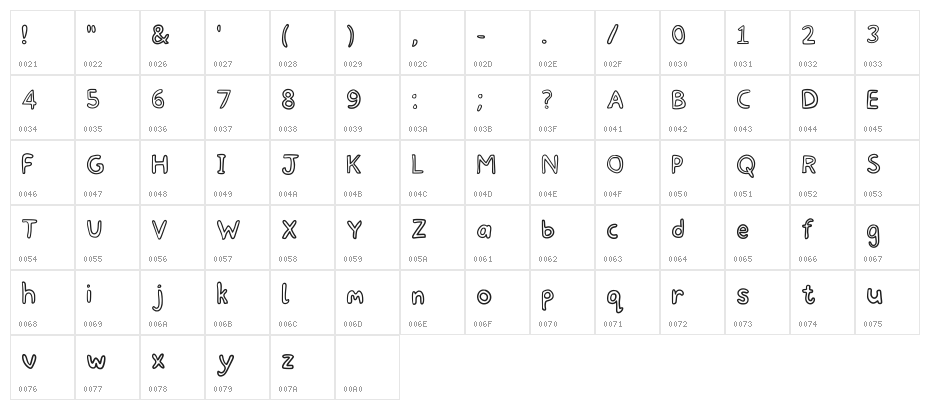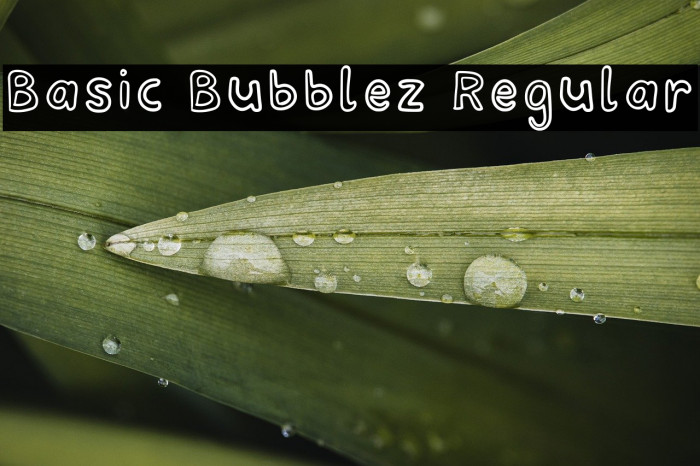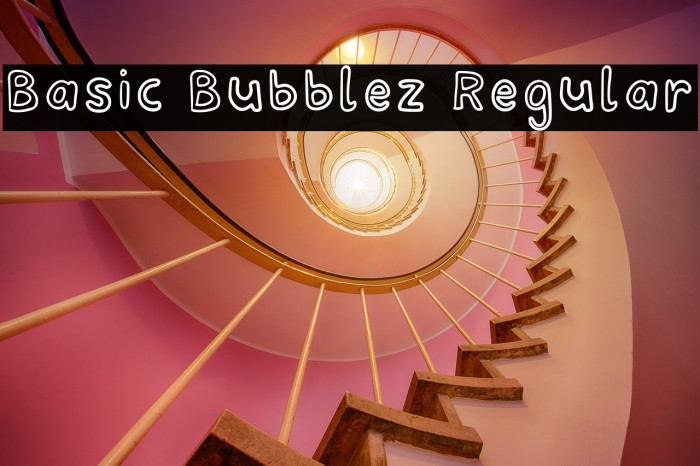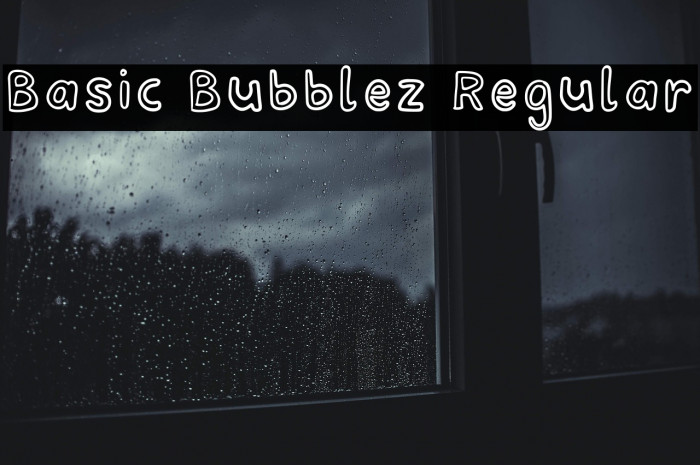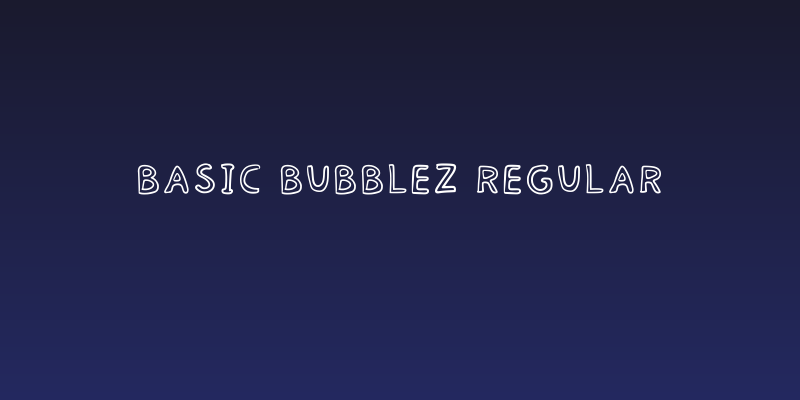
Basic Bubblez Regular Font
Basic Bubblez Regular Description
This playful and whimsical font features rounded, bubble-like characters that give off a friendly and approachable vibe. The letters are outlined with a consistent stroke, creating a bold yet soft appearance. The uppercase and lowercase letters maintain a uniform style, with the lowercase being slightly more compact. Numbers and special characters follow the same bubbly aesthetic, ensuring consistency throughout. The font's design is perfect for projects that require a fun and informal touch, making it ideal for children's materials, playful branding, or casual invitations.
Overall StylePlayful
Proposed ProjectsIdeal for children's books, playful branding, casual invitations, and fun posters.